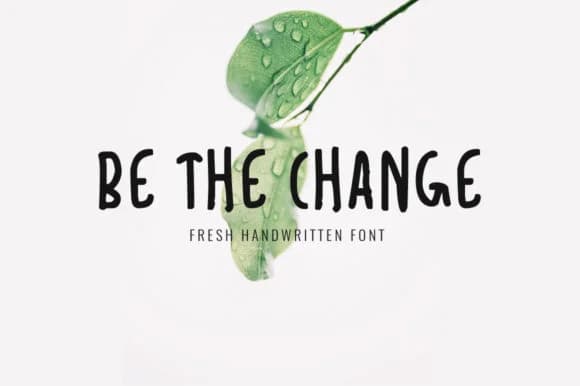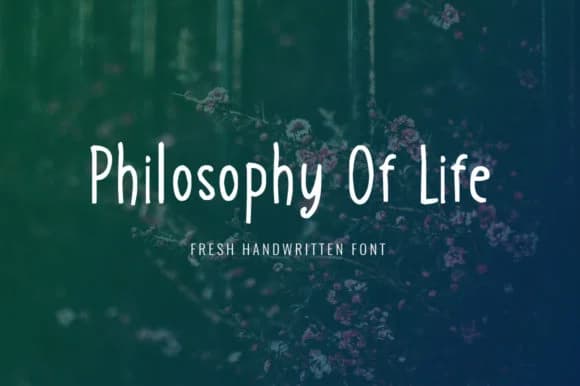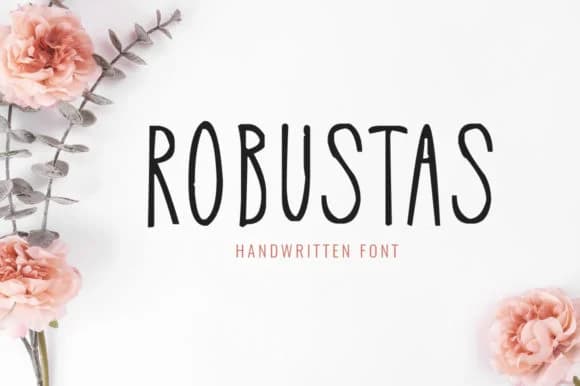
1 / 4About Oneirically Font
Oneirically captures that dreamy, loose-hand quality that feels genuinely personal without sacrificing any readability. FontCove designed this script-handwritten typeface with a playful rhythm and natural bounce to every letterform, drawing readers in with an energy that feels unmistakably human-made. The letters dance across the page while staying legible, making this approachable for any project that needs authentic character and warmth.
This font shines on wedding invitation suites, where its personality sets the tone before guests even open the envelope. Hand-lettered packaging for artisan goods comes alive with the same crafted authenticity. Think small-batch homemade jams, boutique candles, or specialty skincare products that need visual warmth. Charming social media graphics and promotional posts benefit from this script's energy and movement. DIY craft signage and vintage-inspired greeting cards gain immediate visual personality. The playful motion of the letterforms keeps layouts from feeling stiff or overly designed.
Pair Oneirically with a clean sans-serif (try a modern geometric or humanist typeface) to anchor your designs with proper hierarchy and legibility when you need both warmth and clarity working together. Find Oneirically on Creative Fabrica and bring this charming font into your next collection for any project that calls out for genuine personality and character.
Oneirically Font is a script font that shines as a display or heading face. Pair it with a clean sans-serif or serif font for body text β the contrast creates a clear hierarchy while the two styles stay balanced and easy to read.
Oneirically Font
by FontCove